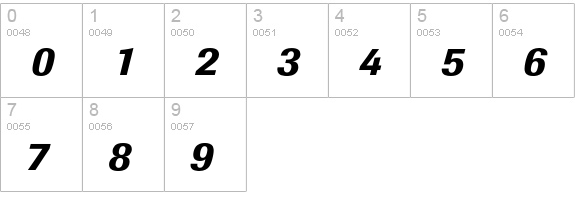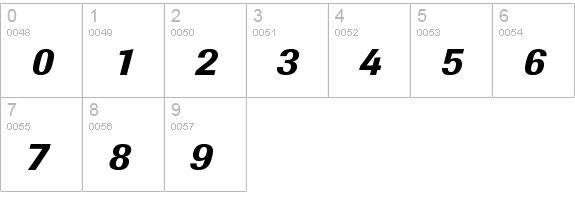
Berthold Imago BQ Medium Italic is a balanced, medium-weight, italic variant in the Berthold typeface family \xE2\x80\x94 well suited to sub-headlines, navigation, and balanced editorial work.
Berthold Imago BQ Medium Italic font is a modern and elegant typeface that exudes sophistication and professionalism. The sleek and stylish design of this font makes it perfect for a wide range of design projects, from branding to editorial design. The italicized version of the font adds a touch of flair and creativity to any text it is applied to, making it stand out and grab attention. What's even better is that Berthold Imago BQ Medium Italic font is available for free download at FontsMarket.com. This means that you can easily access this high-quality font without any cost, making it a valuable resource for designers and creatives looking to enhance their projects with a beautiful and versatile typeface. Don't miss out on the opportunity to add Berthold Imago BQ Medium Italic font to your font library today!